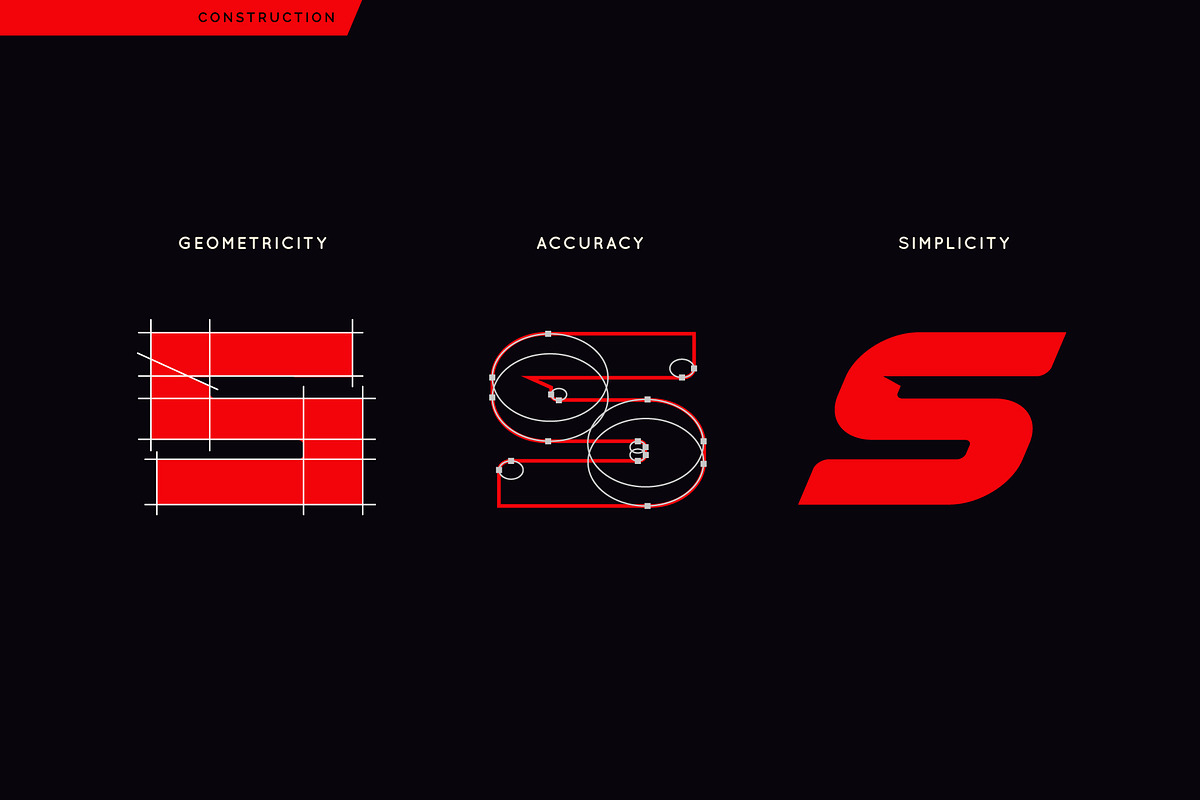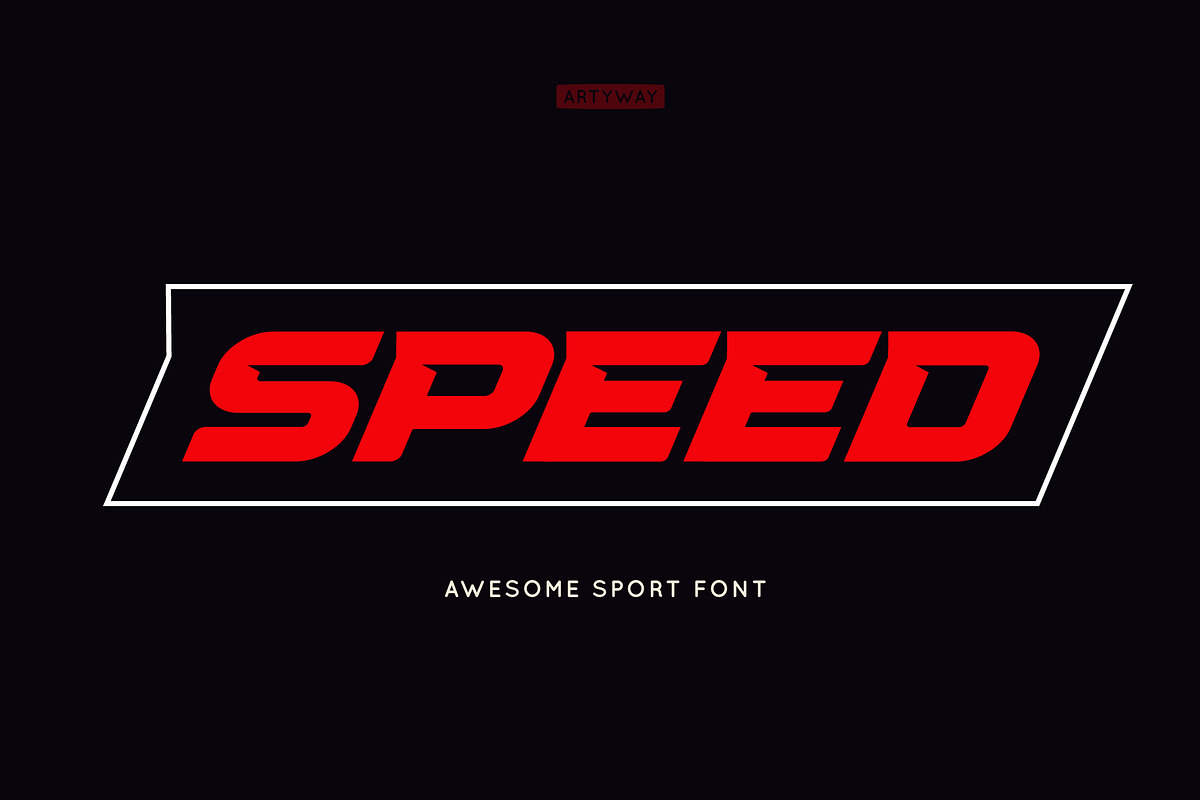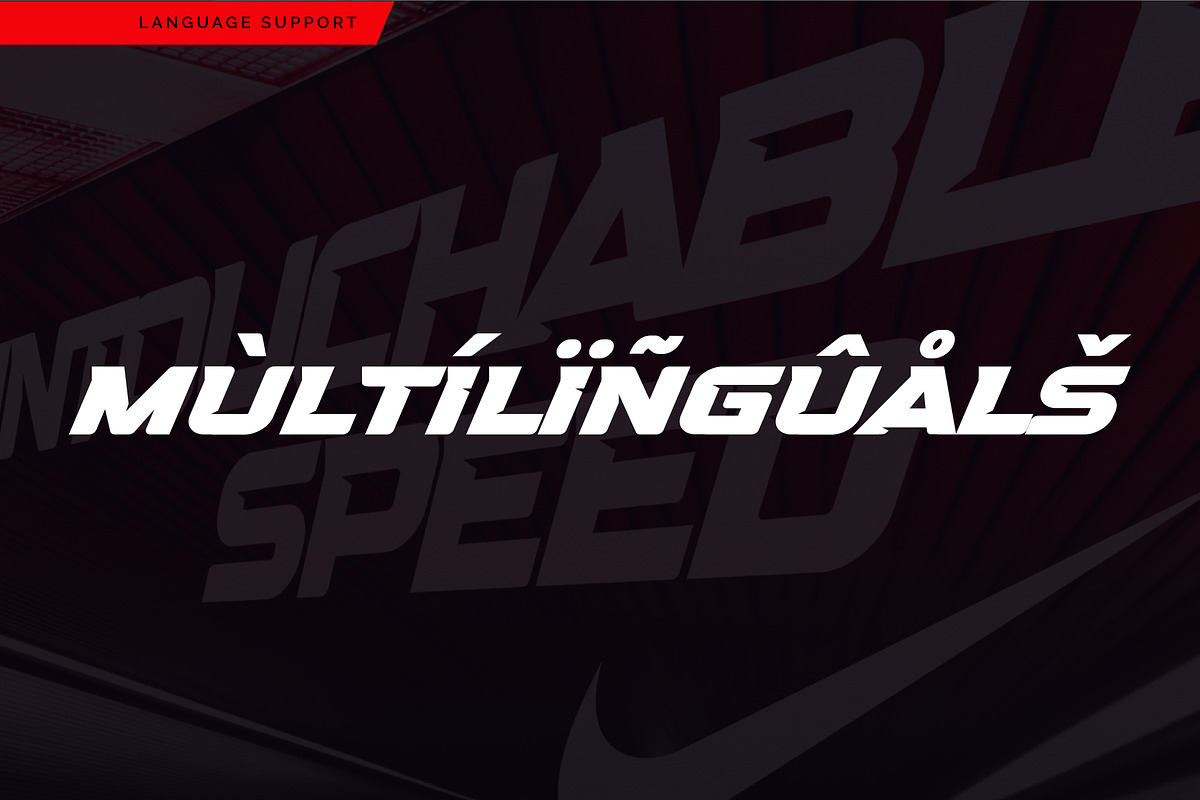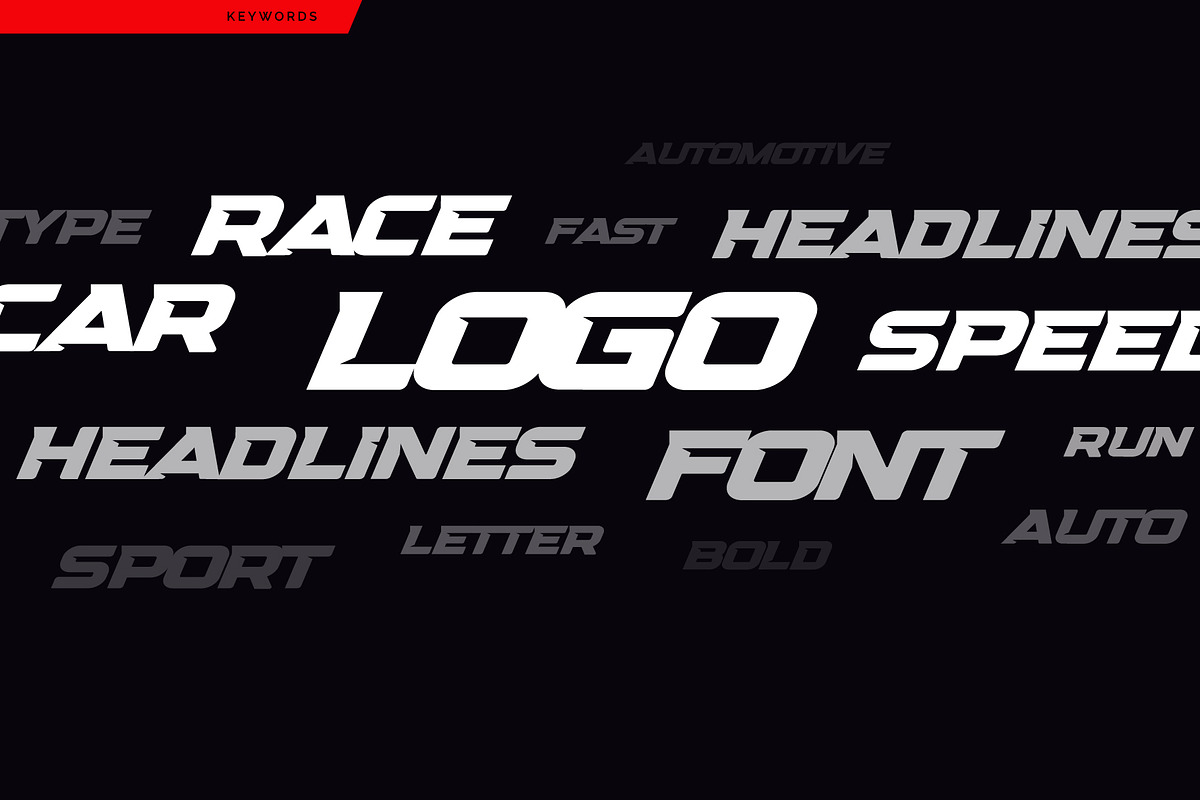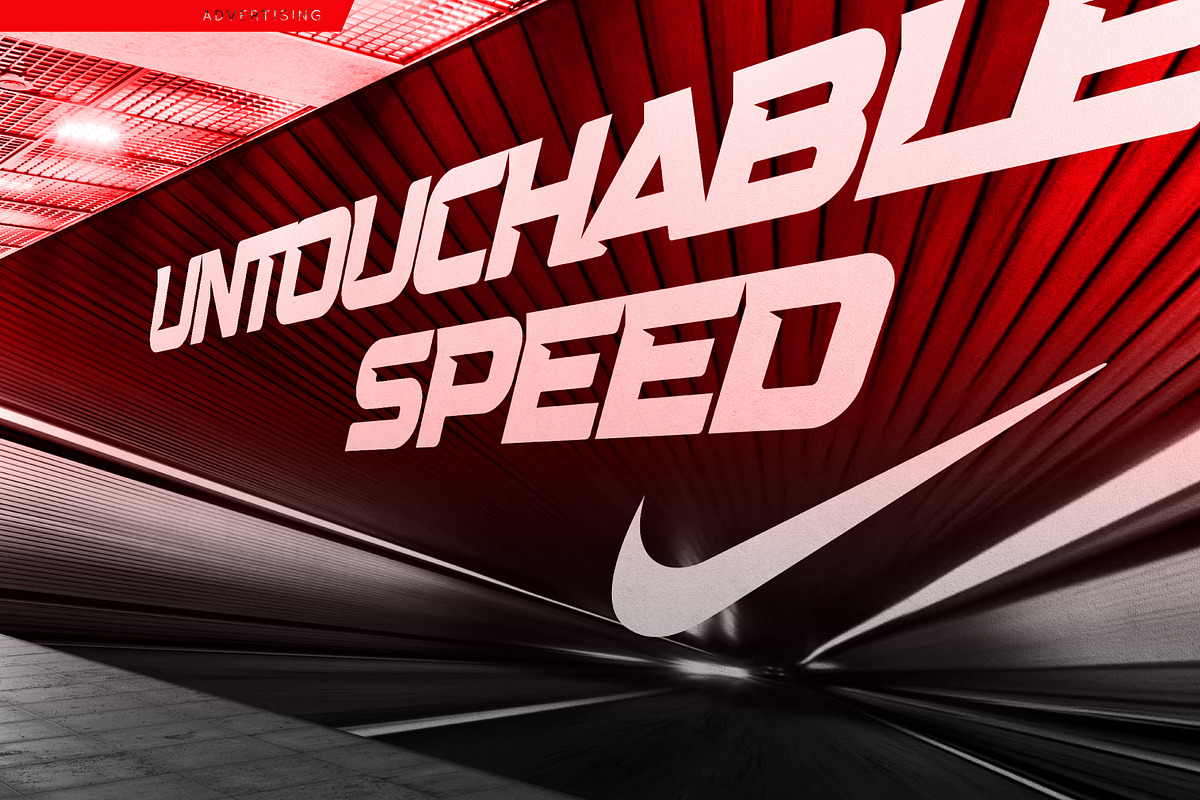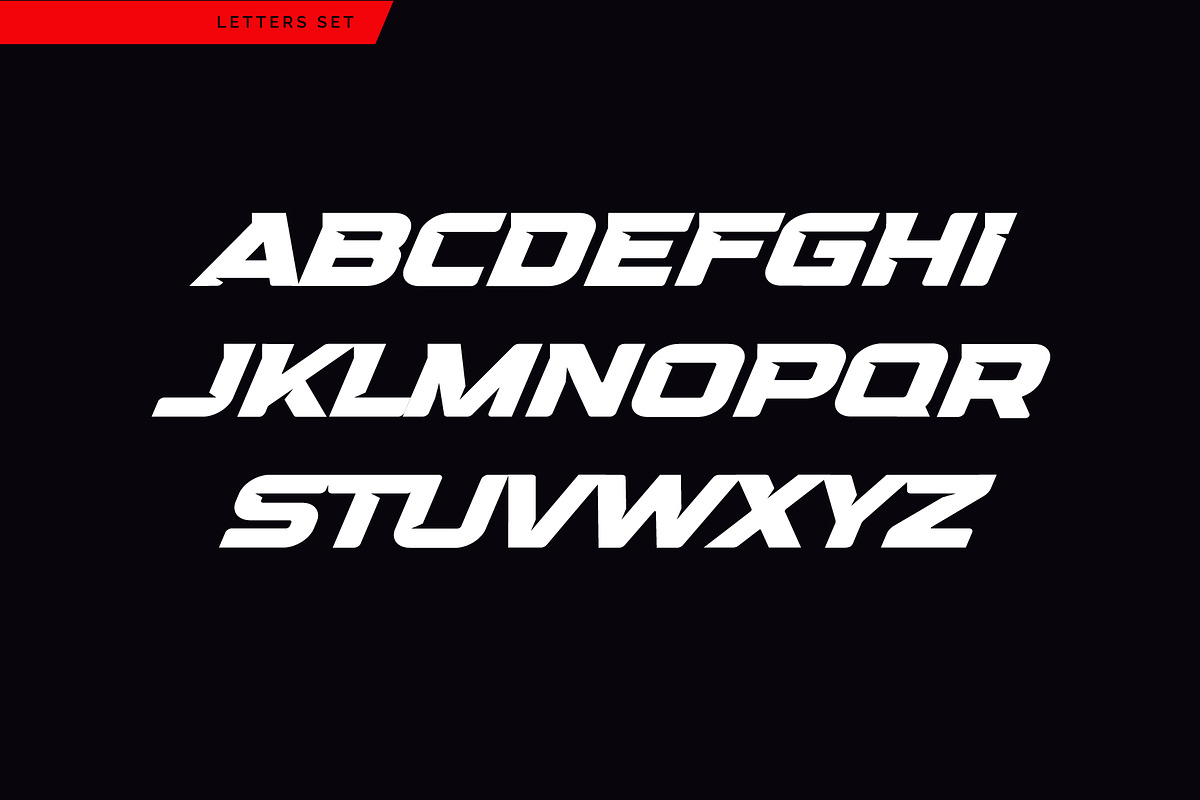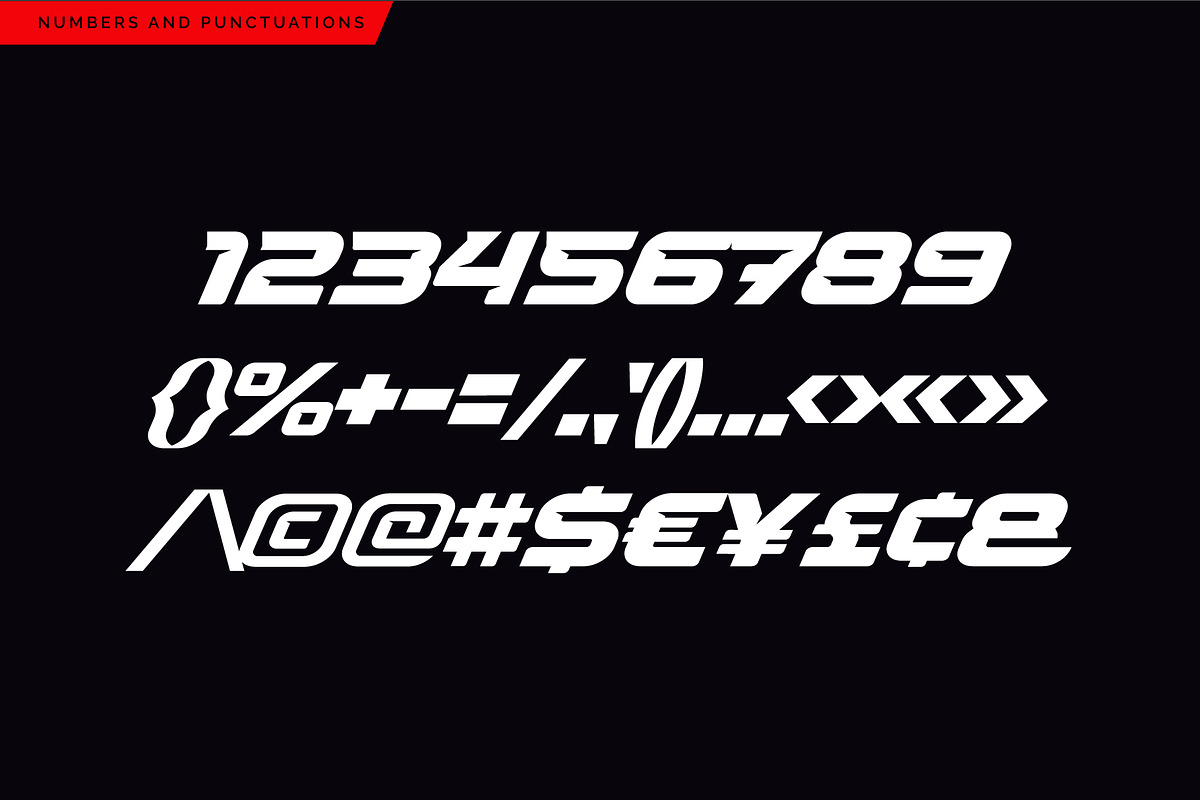
Speed Font
I suggest you to pay attention to the "Speed" font.
It's bold, with sharp corners and some slope for dynamic effect. "Speed" font has a unique charm and easy visual readability, so it's perfect for headlines, whether for sports events, automotive posters, logo or monograms designs.